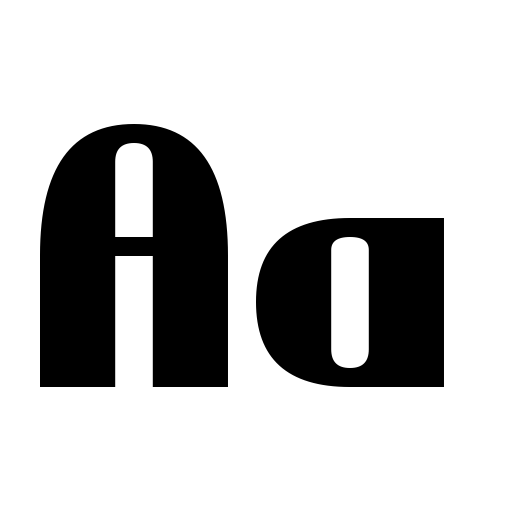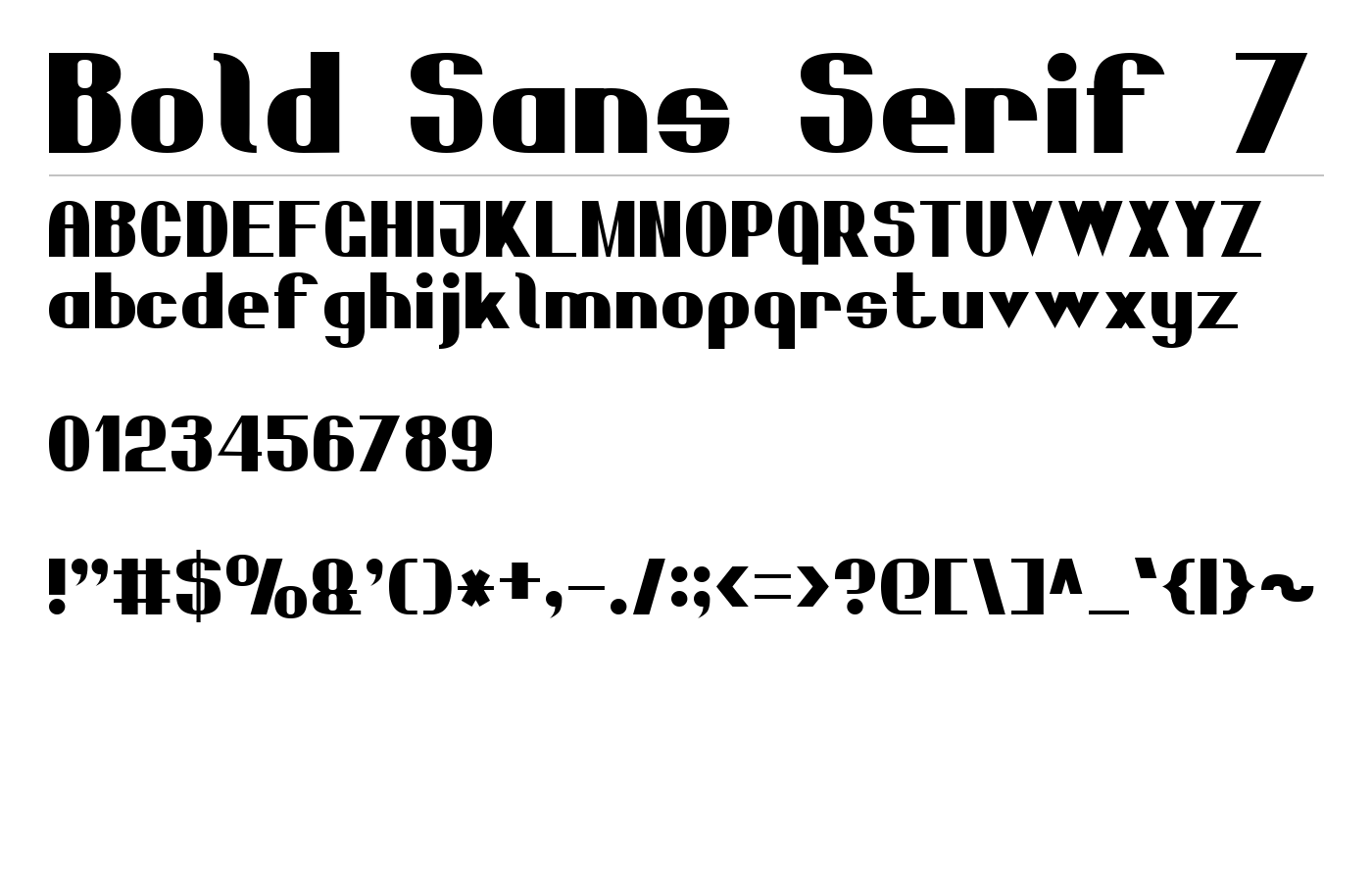
Bold Sans Serif 7 is a striking sans serif font with a bold weight and condensed width, featuring a strong vertical emphasis and sharp geometric shapes. Its high contrast between thick and thin strokes and unique stylistic details give it a modern, industrial feel, making it ideal for impactful headlines, logos, and branding that demand attention. This font works best when you want to communicate strength, clarity, and contemporary style in creative or editorial design.
Bold Sans Serif 7 Font
About Bold Sans Serif 7 Font
| Font family | Bold Sans Serif 7 Font |
| Designer | Sizenko Alexander |